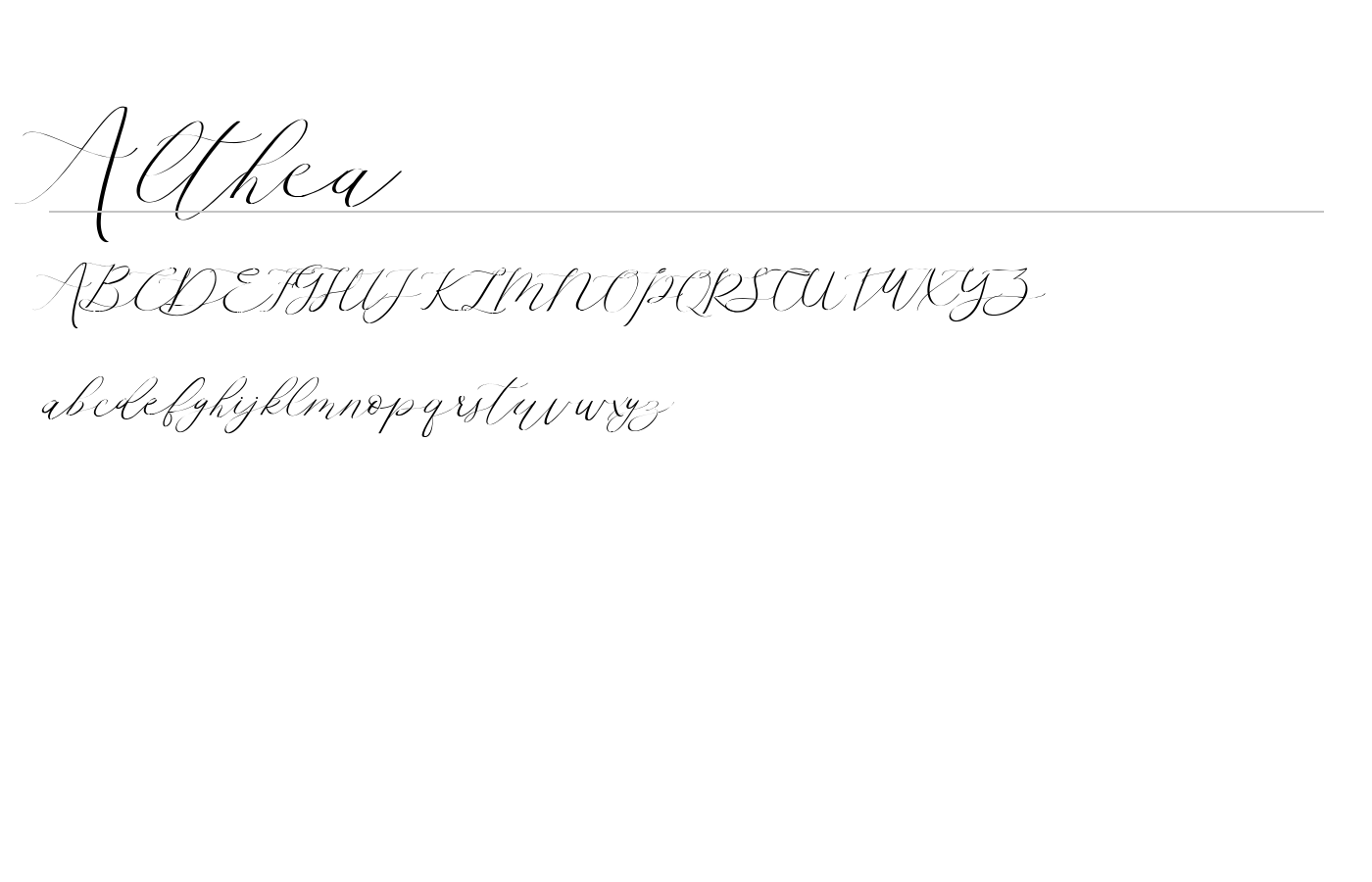
Althea is an elegant script font featuring delicate, flowing letterforms with high contrast between thick and thin strokes, creating a graceful, handwritten appearance. Its slender, ornate shapes and refined curves make it perfect for luxury branding, invitations, and elegant headlines where a sophisticated, personal touch is desired. This font works beautifully in designs that aim to convey femininity, elegance, and a classic, artistic feel.
Althea Font